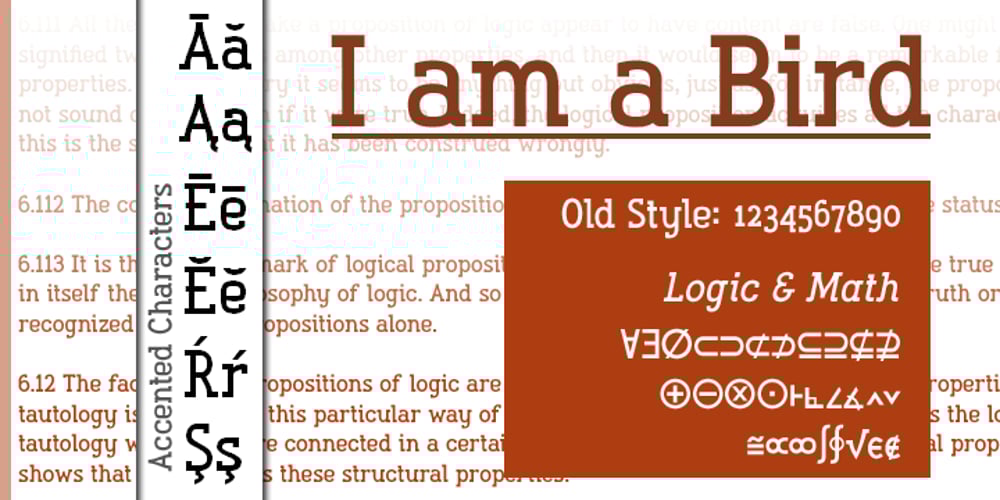
I Am A Bird Font Family was designed by Alec Julien and published by Haiku Monkey. I Am A Bird contains 8 styles and family package options. I Am a Bird is a slab serif with some unexpected curves. Comes complete with italics, old style numerals, tabular numerals, logic and math symbols, Greek characters, and lots of accented glyphs. Performs particularly well at large sizes.